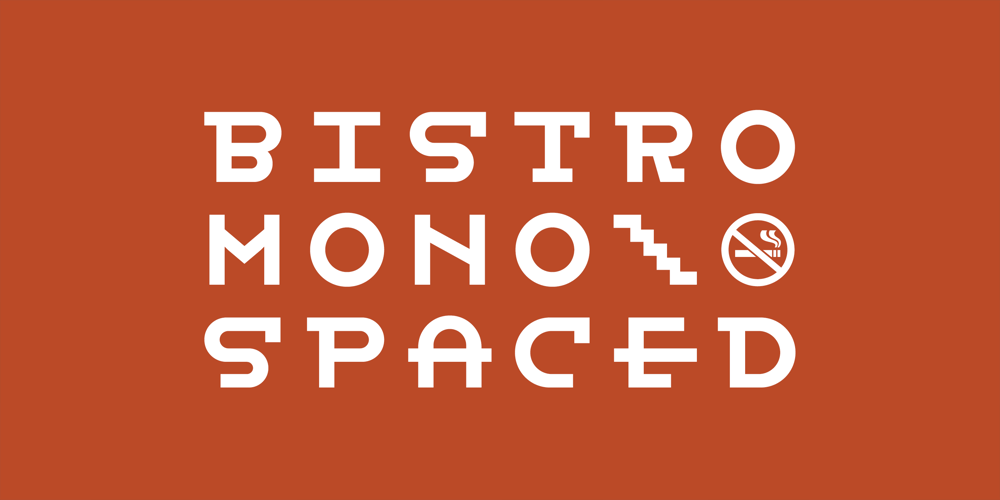
Bistro Mono Font Family was designed by Ryoichi Tsunekawa and published by Dharma Type. Bistro Mono contains 2 styles and family package options. A monospaced font designed for a small Italian pub & restaurant. Very eye-catching font.